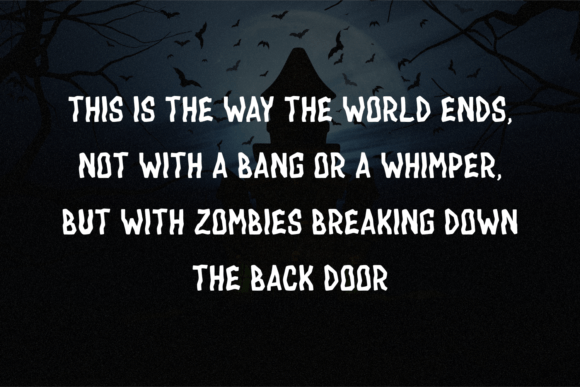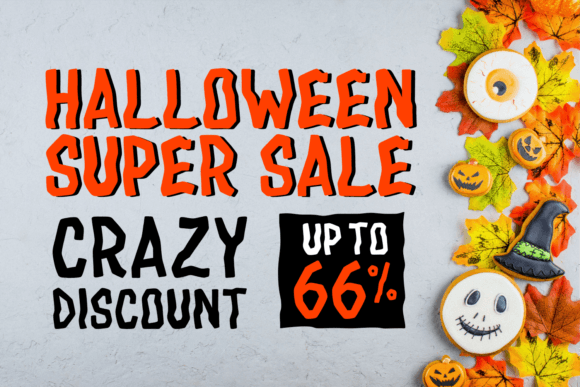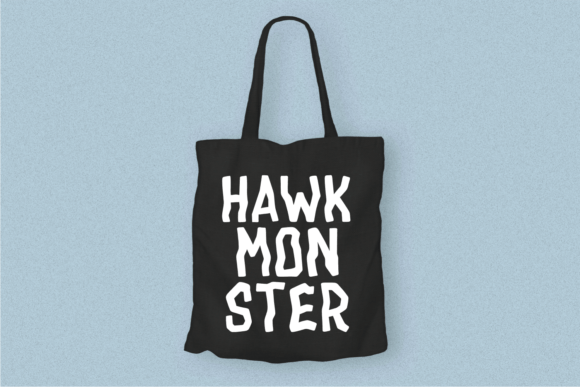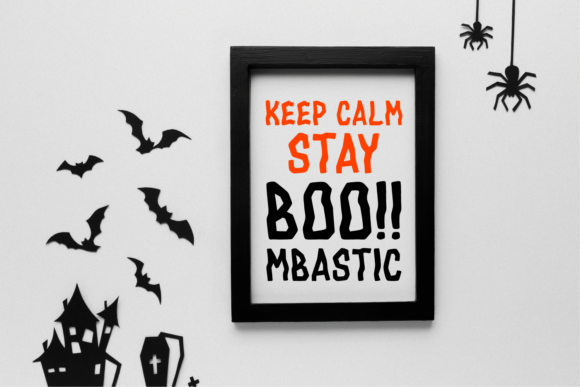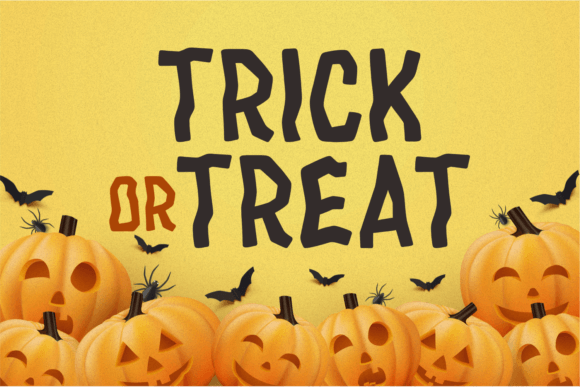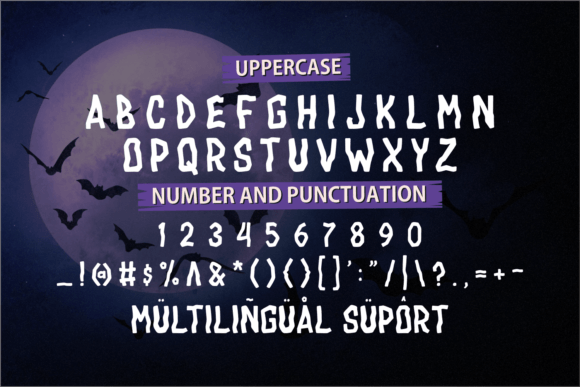
Introducing Drac Tombstone Font: The Spooky Display Font to Elevate Your Designs
Are you looking for a font that will add a touch of spookiness and elegance to your designs? Look no further than Drac Tombstone, a handcrafted display font that is perfect for designers and crafters alike. This versatile font is designed to make your branding shine, and its unique and beautiful touch will make your designs come alive.
A Font that’s Perfect for Any Occasion
Drac Tombstone is a font that can be used for a variety of projects, from headings and logos to ads, printed quotes, packaging, and even website or social media branding. Its elegant and wonderful design makes it perfect for any occasion, whether you’re creating a spooky Halloween project or a sophisticated branding campaign.
What Sets Drac Tombstone Apart
Every letter in the Drac Tombstone font has a unique and beautiful touch, which sets it apart from other fonts. The font is handcrafted with attention to detail, ensuring that each letter is carefully crafted to provide a smooth and elegant look. This font is perfect for designers who want to add a touch of sophistication and elegance to their designs.
Perfect for Cut Machines
One of the best things about Drac Tombstone is that it’s a smooth font, making it perfect for cut machines like Cricut and Silhouette. This means that crafters can use the font to create beautiful and intricate designs with ease. Whether you’re creating vinyl decals, paper crafts, or iron-on designs, Drac Tombstone is the perfect font to use.
Use Drac Tombstone for Your Halloween Projects
Halloween is just around the corner, and Drac Tombstone is the perfect font to use for your spooky projects. From Halloween party invitations to spooky decorations, this font is sure to add a touch of eeriness and elegance to your designs. You can use it to create signs, banners, and other decorations that will make your Halloween party stand out.
Why Designers and Crafters Love Drac Tombstone
Designers and crafters love Drac Tombstone for its versatility and elegance. The font is easy to use and can be applied to a variety of projects, from branding and advertising to crafting and DIY projects. Its unique and beautiful touch makes it perfect for designers who want to add a touch of sophistication and elegance to their designs.
Tips for Using Drac Tombstone
Here are some tips for using Drac Tombstone in your designs:
- Use it for headings and titles to add a touch of elegance and sophistication.
- Pair it with other fonts to create a unique and interesting look.
- Use it for logos and branding to make your business stand out.
In conclusion, Drac Tombstone is a versatile and elegant font that is perfect for designers and crafters alike. Its unique and beautiful touch makes it perfect for a variety of projects, from branding and advertising to crafting and DIY projects. Whether you’re creating a spooky Halloween project or a sophisticated branding campaign, Drac Tombstone is the perfect font to use.